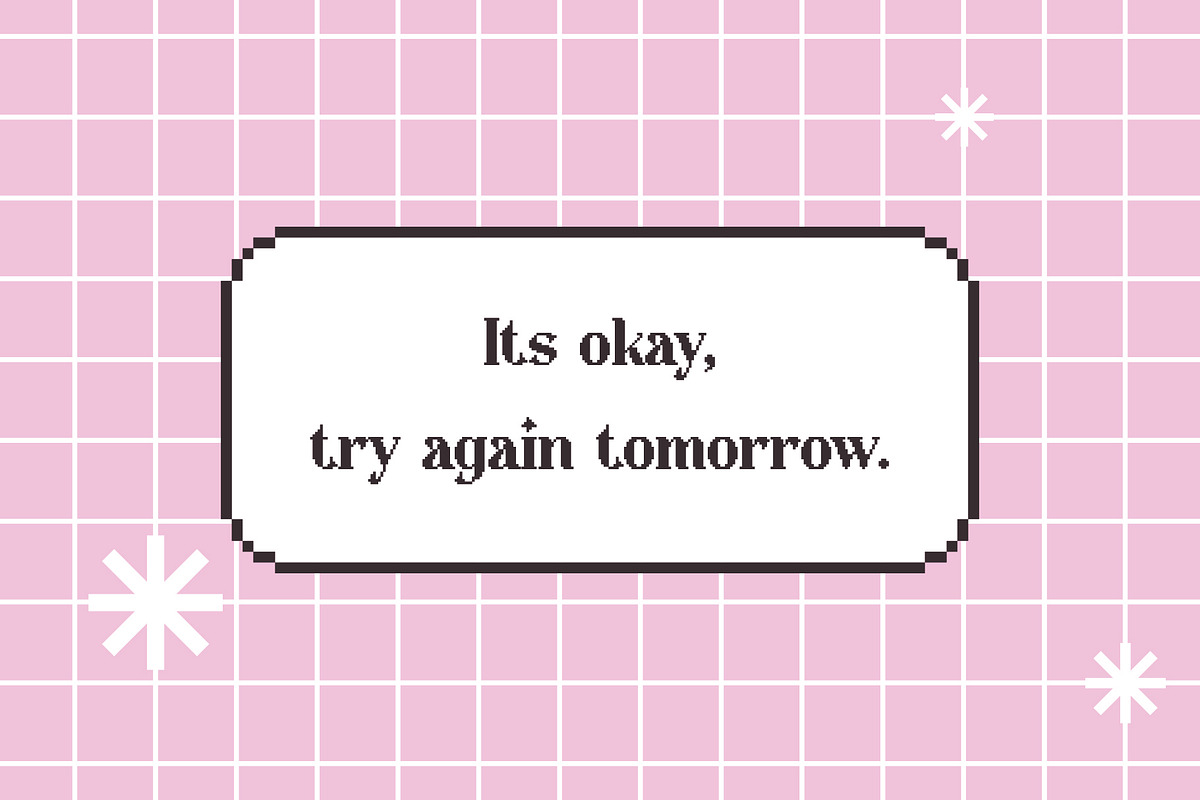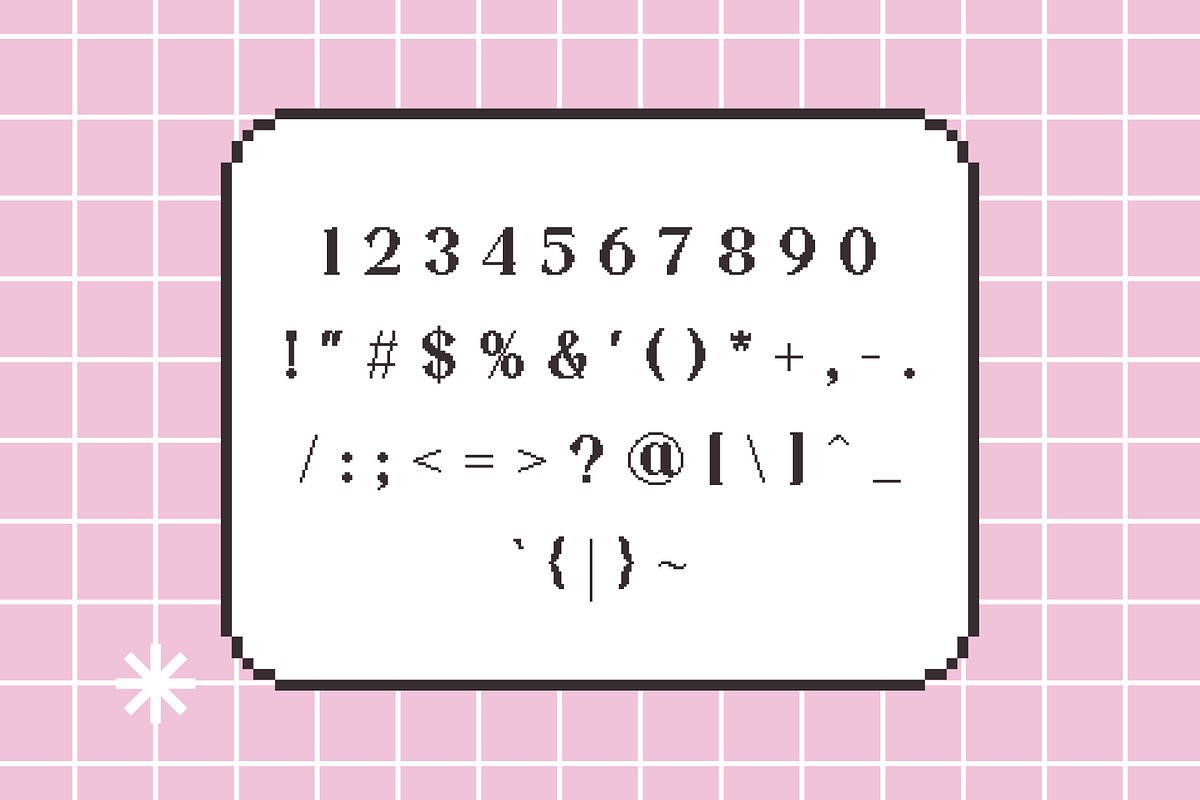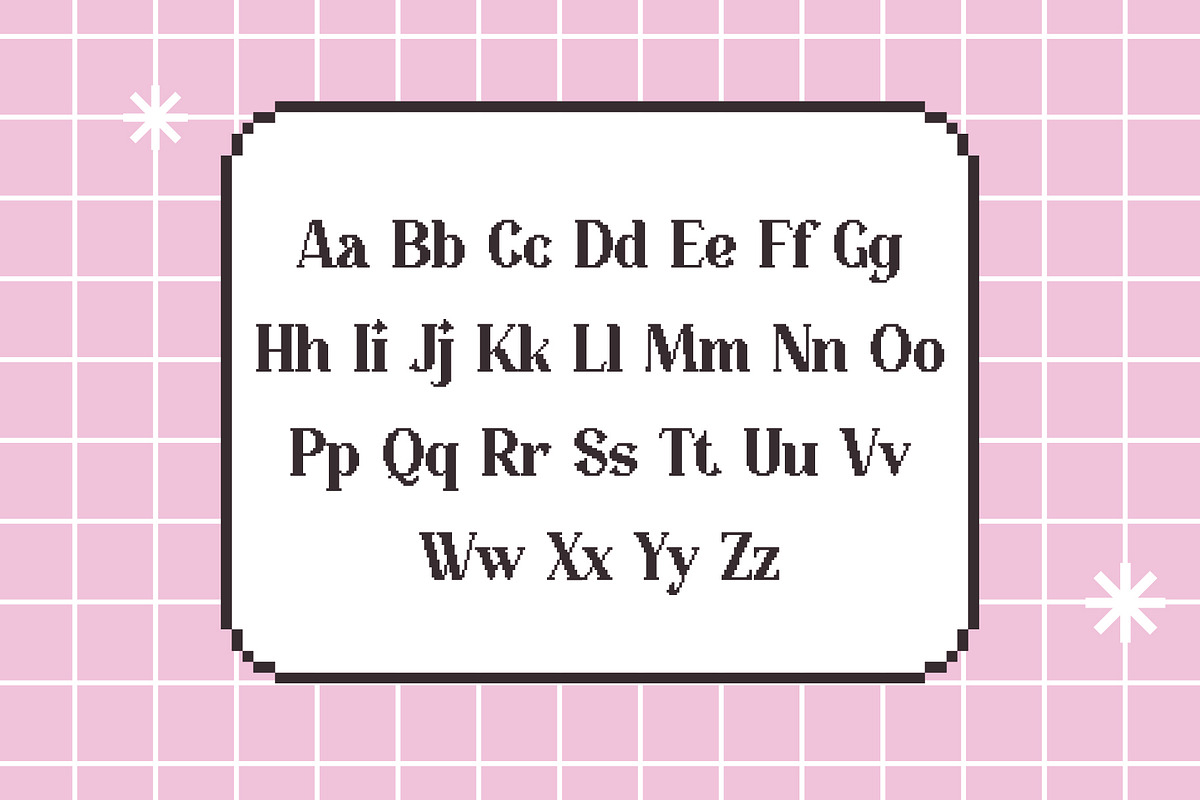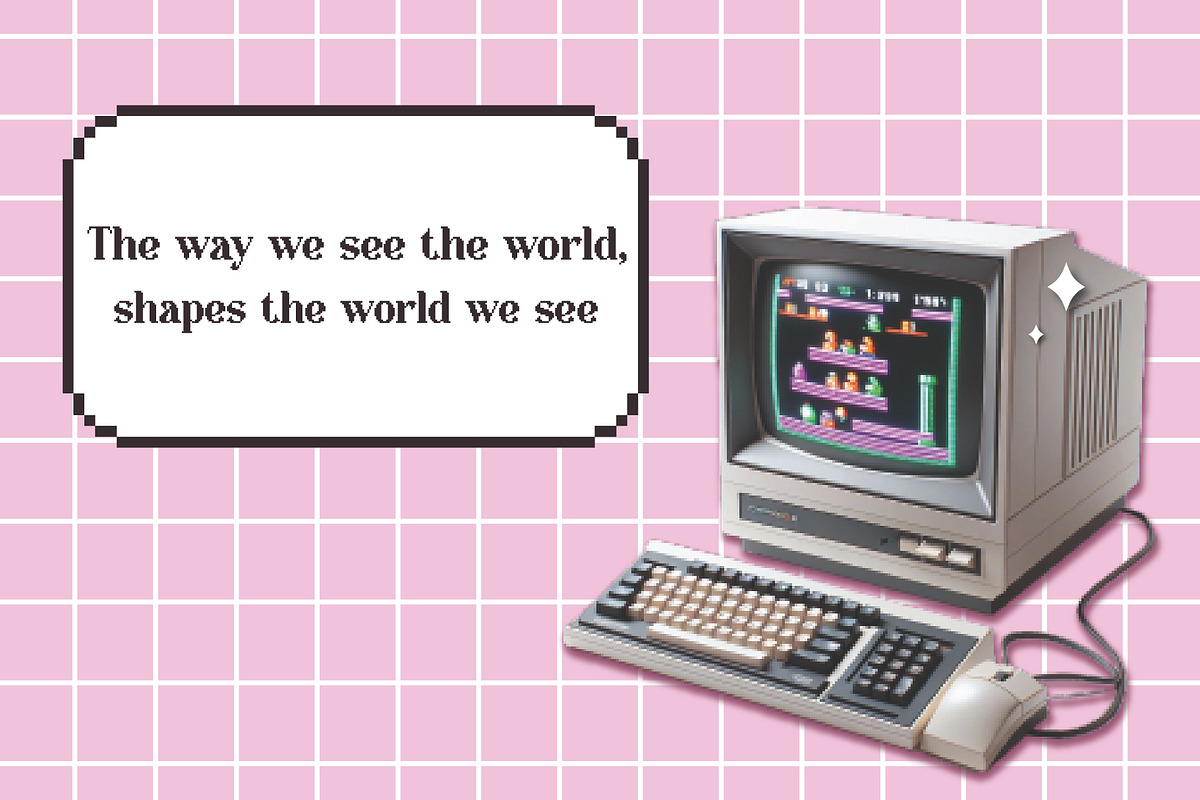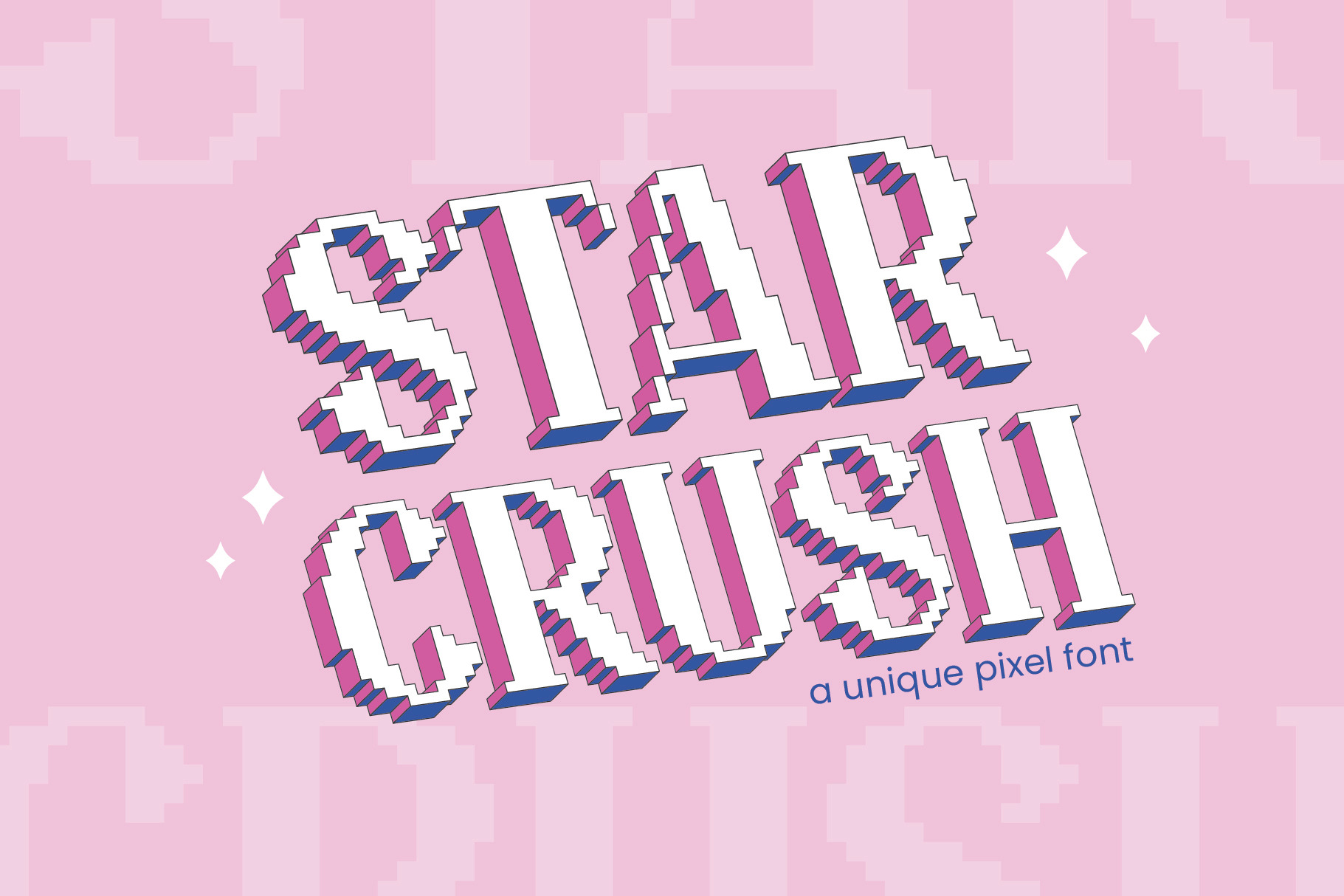
Star Crush - Y2K Pixel Font
If you’re a fan of retro-futurism, synthwave, or vaporwave, then Star Crush is the perfect font for you! Its unique pixelated design is inspired by the iconic graphics of old-school video games, computers, and tech gadgets. This super aesthetic and unique font is perfect for adding a touch of Y2K magic to your posters, apparels, magazines, logos, and much more.
Star Crush font package includes everything you need to get started, including the basic character set of alphabet, numbers, and some punctuations. With its ease of use and versatility, you can create a wide range of designs that are out of this world!